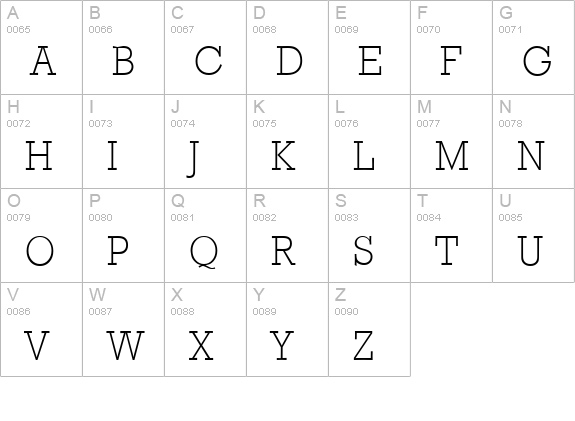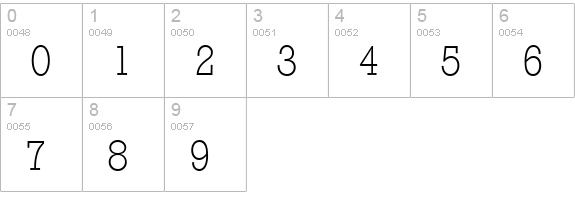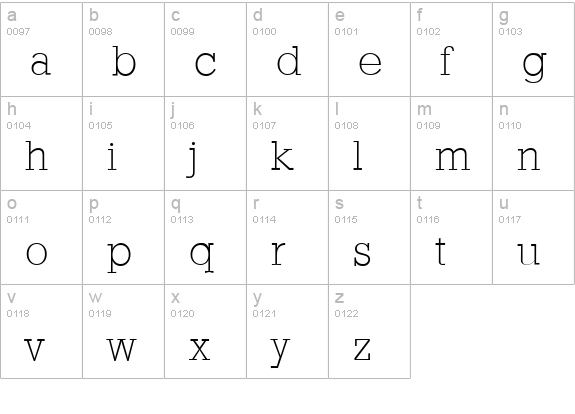
StaffordSerial-Xlight-Regular is the standard, neutral variant in the StaffordSerial typeface family \xE2\x80\x94 well suited to general body text, paragraphs, and standard typographic work.
StaffordSerial-Xlight-Regular is a modern and sophisticated typeface that exudes elegance and professionalism. Its sleek lines and subtle curves make it perfect for a wide range of design projects, from elegant invitations to corporate branding. The light weight of this font adds a delicate touch to any text, making it ideal for creating a refined and polished look. Best of all, StaffordSerial-Xlight-Regular is available for free download at FontsMarket.com. This means you can easily access and use this elegant font in your projects without any cost. Whether you are a designer looking to add a touch of sophistication to your work or a business owner wanting to elevate your branding, StaffordSerial-Xlight-Regular is the perfect choice. Download it today and elevate your design projects with this stunning and versatile font.